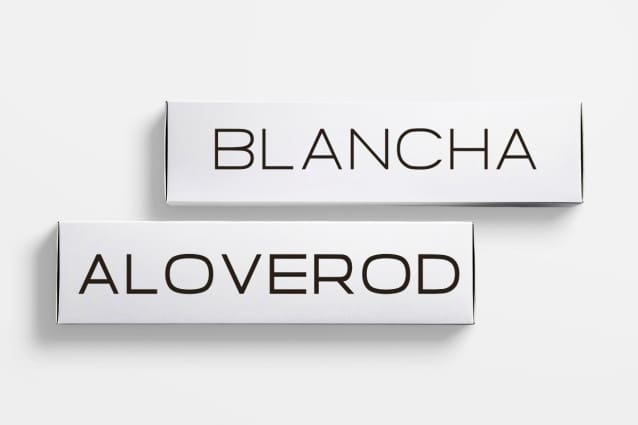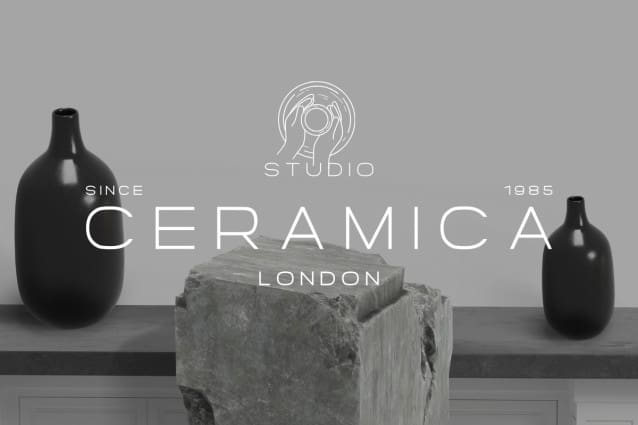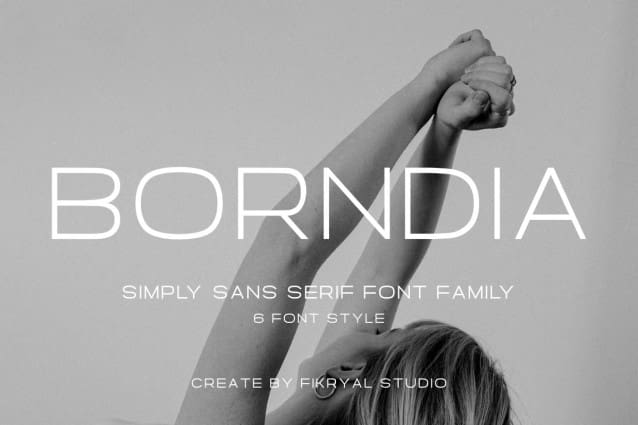
Borndia Font Family
Borndia Font Family is a modern sans-serif font family that combines simplicity with versatility. Featuring six styles: Light, Light Italic, Regular, Italic, Bold, and Bold Italic, this font family is perfect for a wide range of design needs, including branding, editorial layouts, web design, and app development. With its clean, minimal design, Borndia adds a polished and professional look to any project.
Whether you’re designing logos, crafting compelling content, or building engaging digital experiences, Borndia delivers the flexibility and aesthetic sophistication you need.